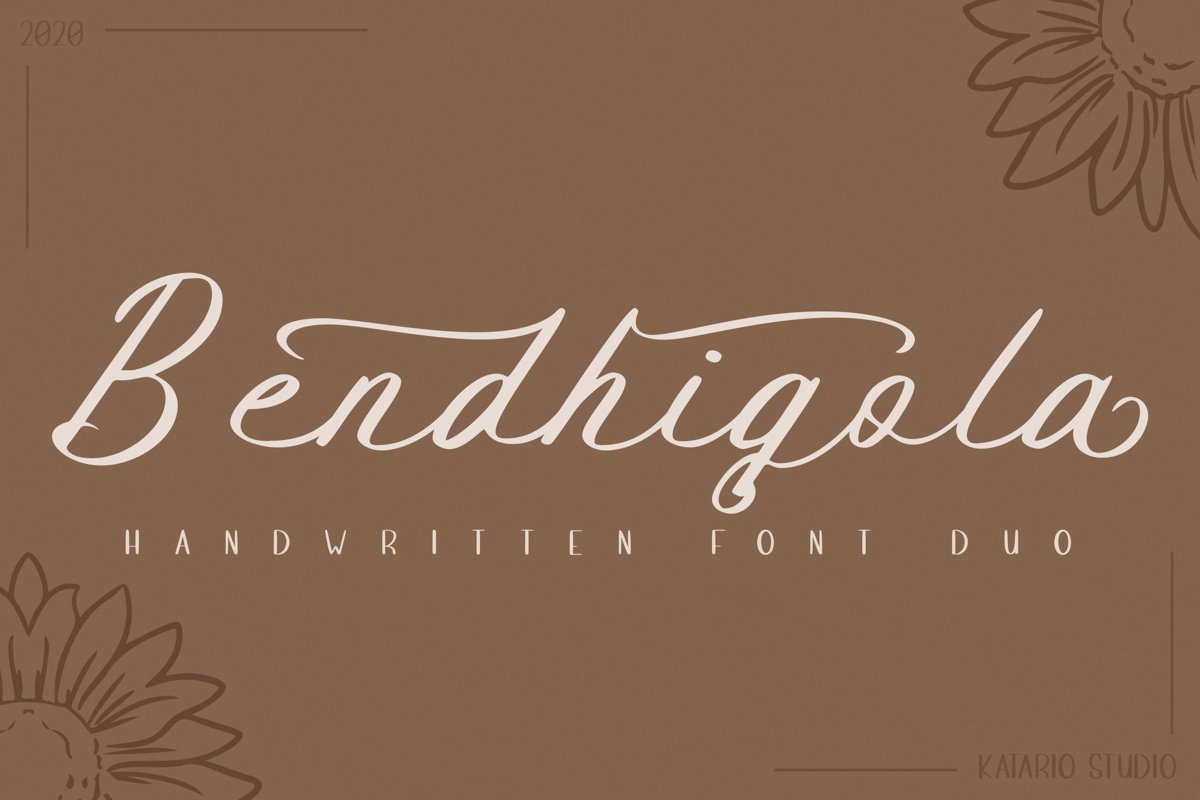
Bendhigola - Handwritten Font Duo
Bendhigola is a beautiful handwritten script font duo that is perfect for any projects you have (branding, wedding invitations, products, music cover, marketing material, social media).